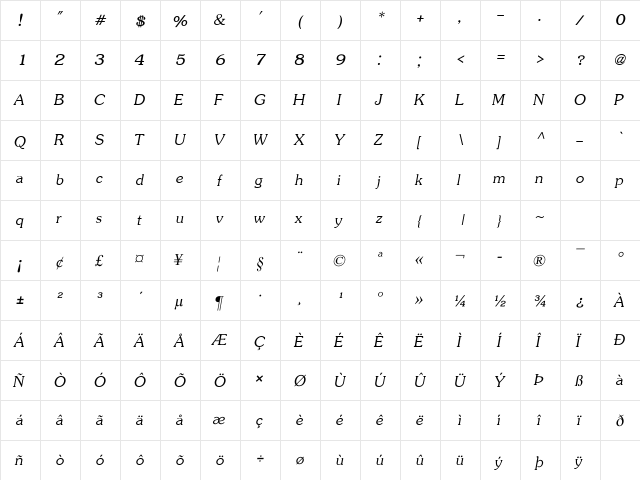
JasmineUPC Italic
Design Context for JasmineUPC Typeface
JasmineUPC offers clean, dependable letterforms without strong stylistic allegiance, making it a practical choice for designers who need flexibility. The slanted form adds forward momentum and visual energy.
Pro Tip: Try JasmineUPC for annotation and caption copy alongside an upright companion — the contrast in angle creates a dynamic but ordered typographic system.